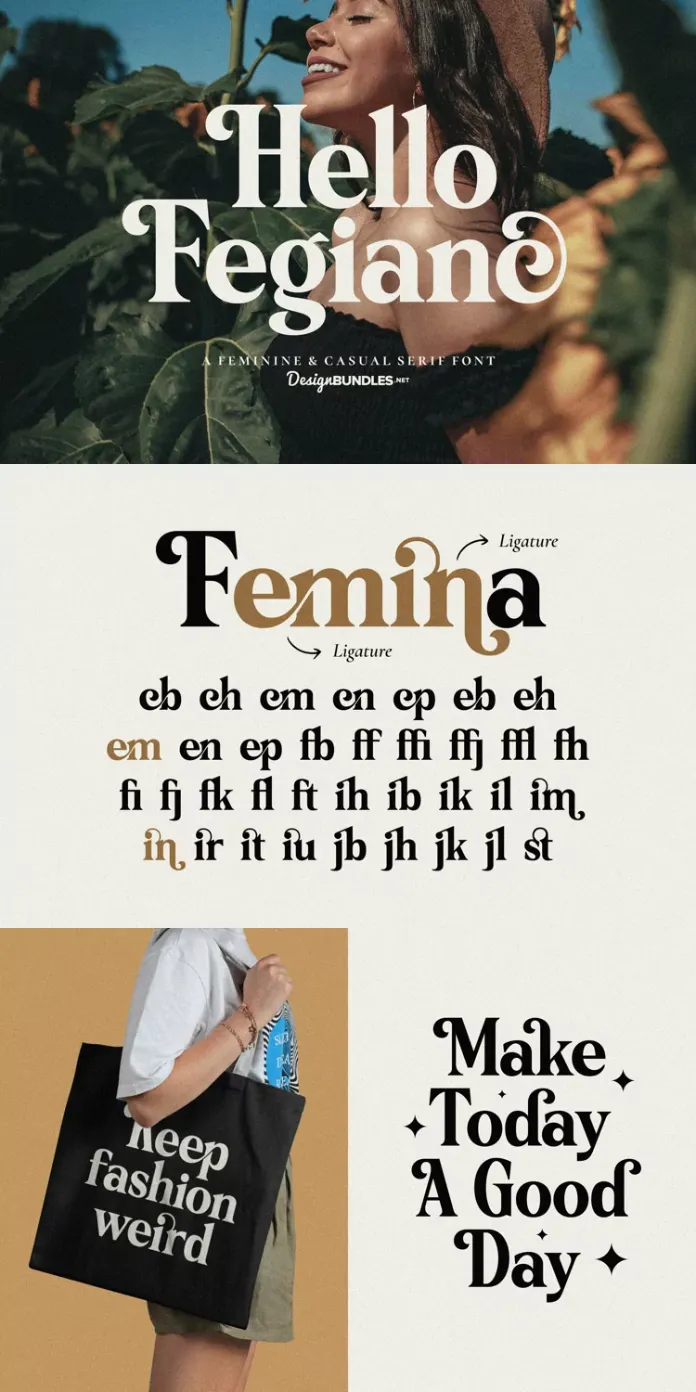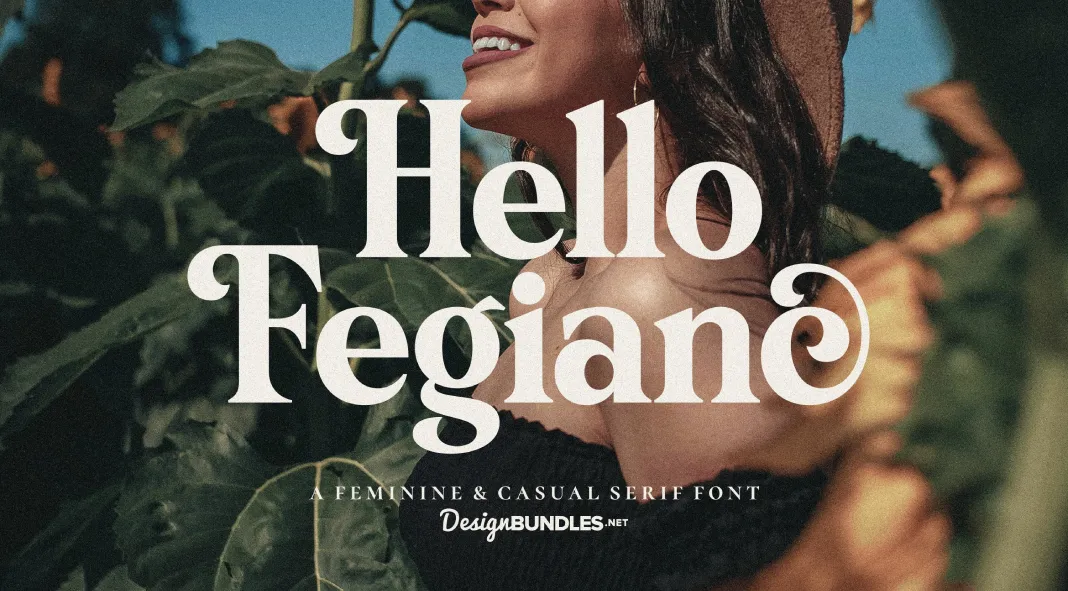
A Feminine Typeface with Versatile Appeal
The Hello Fegianc font, exclusively available on Font Bundles, offers a fresh and sophisticated approach to typography, blending a feminine elegance with a casual, modern style. This serif font stands out with its refined ligatures and a distinct character set that enhances the versatility and charm of any design project.
Design and Aesthetic
Hello Fegianc is a beautifully crafted serif typeface that exudes a sense of grace and delicacy, making it ideal for projects that require a touch of femininity. The font’s design balances soft curves with strong, well-defined strokes, creating a visually pleasing contrast that draws the eye. The subtle serifs and carefully constructed ligatures add a vintage flair, making it suitable for contemporary and classic designs.
The font’s aesthetic is both approachable and professional, making it a great choice for a wide range of applications. Whether you’re designing a logo, brand identity, packaging, or print materials like posters and invitations, Hello Fegianc brings a unique character that elevates the overall design.
Features and Versatility
Hello Fegianc comes packed with a variety of features that make it a highly versatile typeface. It includes a complete set of uppercase and lowercase letters, numerals, punctuation, and symbols, ensuring comprehensive support for most design needs. Additionally, the font offers multilingual support, making it accessible for international use—a vital feature for brands with a global presence.
The font’s ligatures are particularly noteworthy. They offer designers the ability to create smooth, connected letterforms that enhance the flow and visual cohesion of the text. This feature is especially useful for logotypes and headlines, where a unique typographic style can significantly impact brand recognition and visual appeal.
Applications in Design
One of the standout qualities of Hello Fegianc is its adaptability to various design contexts. Its elegant yet casual style makes it a perfect fit for branding projects that aim to convey a sense of modern sophistication. The font’s feminine qualities are ideal for fashion brands, beauty products, and lifestyle brands targeting a female audience. Its legibility and distinctive style also make it an excellent choice for editorial design, where readability and aesthetic appeal are paramount.
For print design, Hello Fegianc shines in applications like posters, quotes, and invitations, where its ability to combine visual interest with readability can make a significant impact. The font’s versatility extends to merchandise design, such as t-shirts and tote bags, where its unique style can add a touch of elegance and individuality to everyday items.
In summary, Hello Fegianc is a versatile and elegantly designed typeface that offers a range of features suitable for various design applications. Its feminine charm and modern style make it a valuable addition to any designer’s toolkit, particularly for projects requiring a unique and visually engaging typeface. Whether for branding, print, or digital use, Hello Fegianc delivers a distinctive look that can enhance the visual impact of any design project.